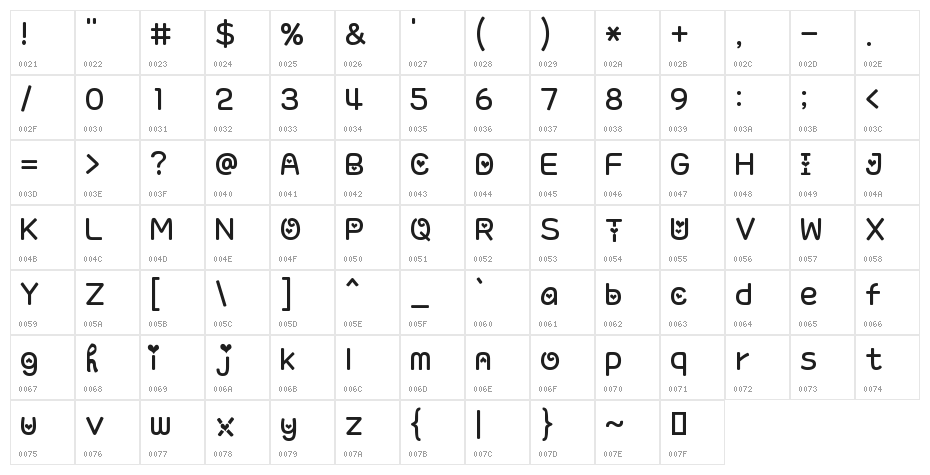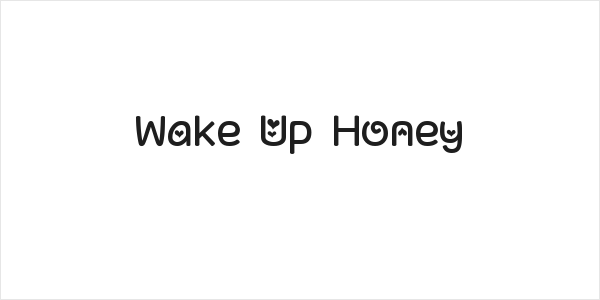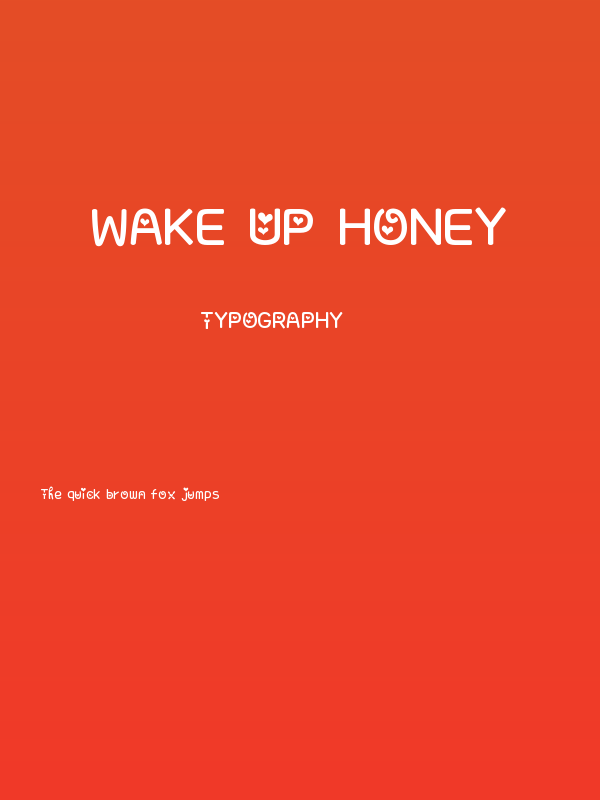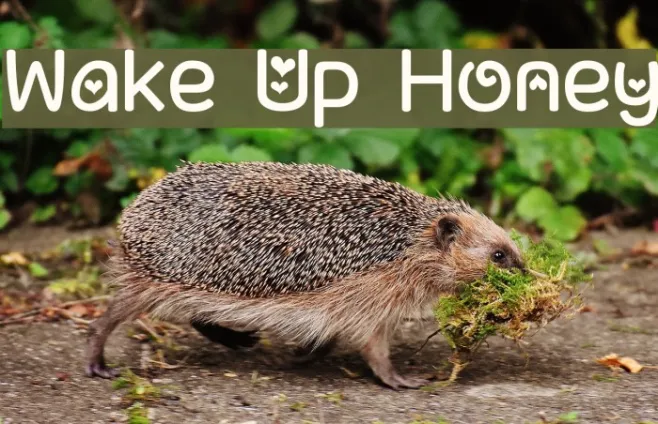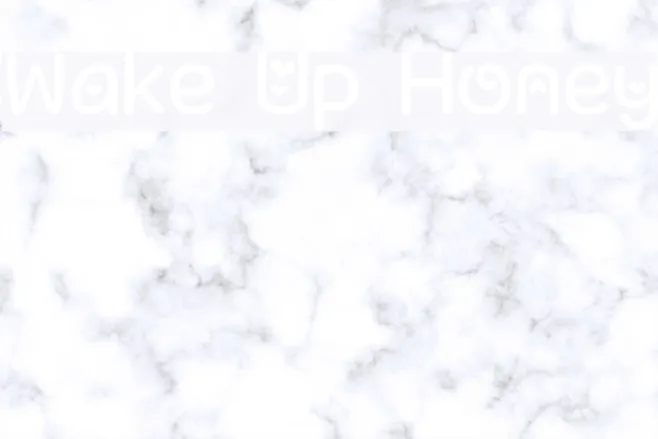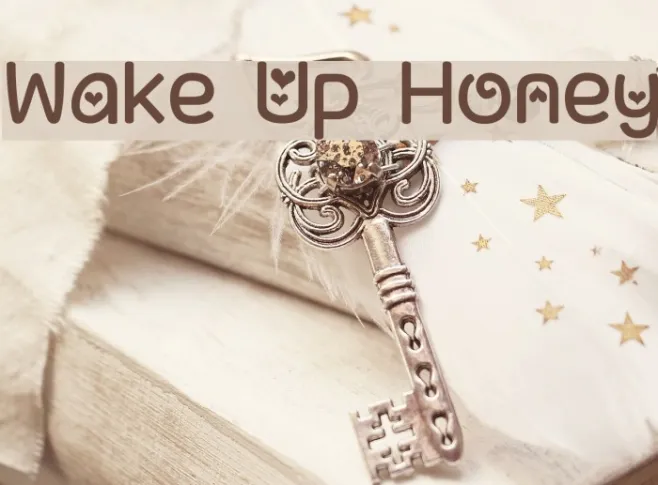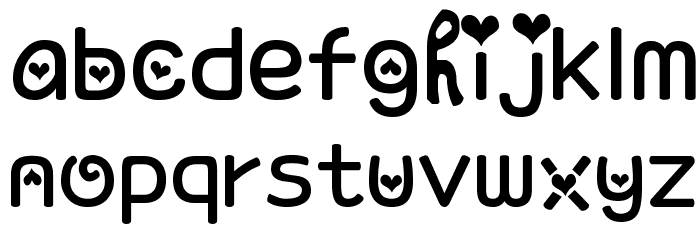
Wake Up Honey Font
Wake Up Honey Description
This playful and whimsical font features rounded, bold characters with unique heart-shaped cutouts in several letters, adding a charming and friendly touch. The font maintains a consistent stroke width, giving it a clean and modern appearance. The lowercase letters mirror the playful style of the uppercase, with some characters like 'g' and 'j' incorporating the heart motif. Numbers and special characters are designed to match the overall style, ensuring a cohesive look. This font is perfect for projects that require a fun and lighthearted feel.
| Overall Style | Playful, Modern |
| Proposed Projects | Ideal for children's books, greeting cards, playful branding, and social media graphics. |